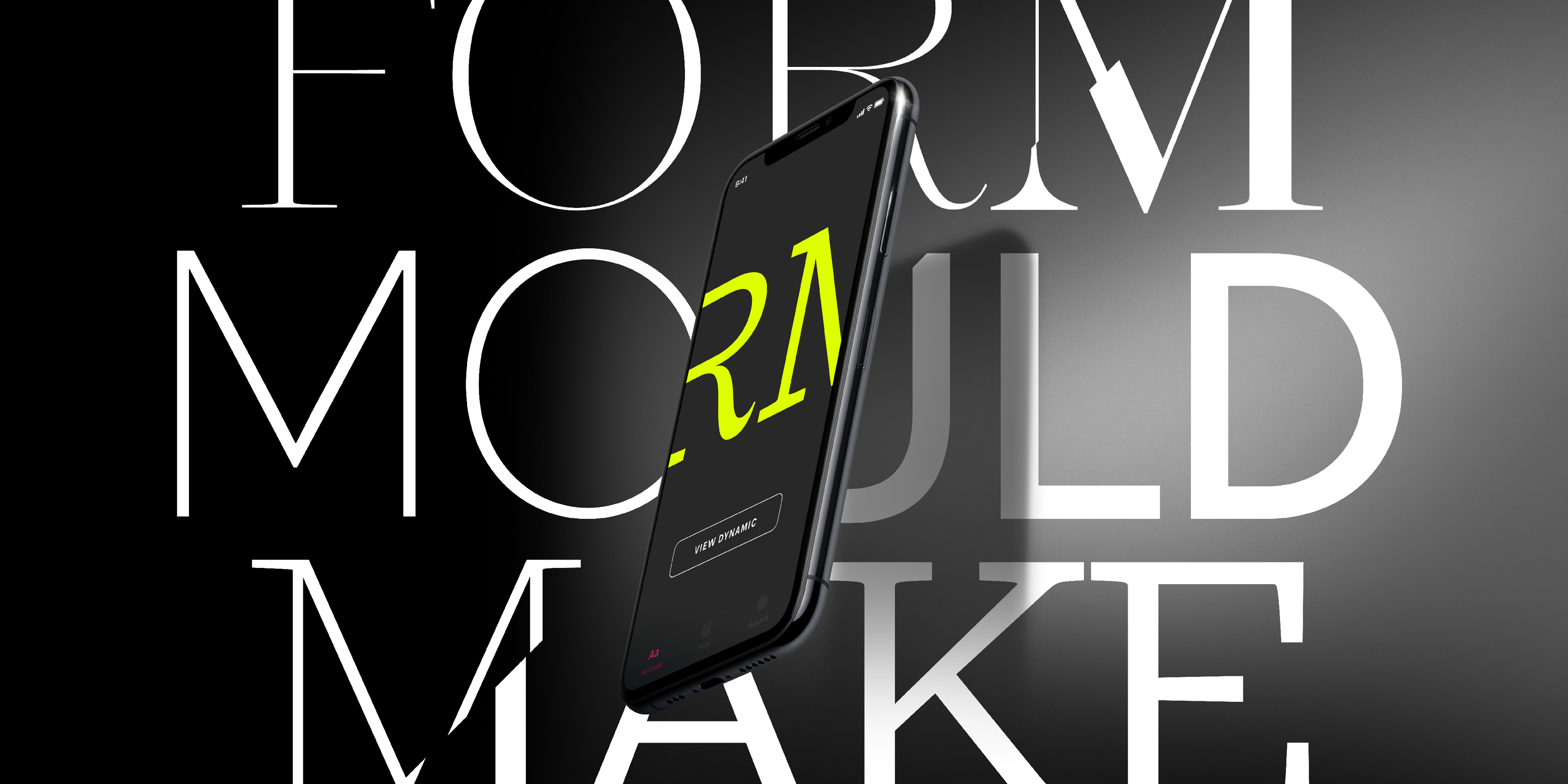
Macklin Font is perfect for contemporary magazine layouts, modern editorial design, digital publishing platforms, lifestyle brand communications, creative agency portfolios, and sophisticated marketing materials. Its versatile character makes it ideal for design studios, fashion publications, cultural magazines, tech startups, and any application requiring flexible typography that conveys creative intelligence, editorial excellence, and contemporary design sensibility.
Macklin Font is exciting because it masterfully bridges the gap between geometric precision and humanist warmth, creating a typeface that feels both systematic and approachable. Its carefully calibrated proportions and refined details offer exceptional versatility across text and display applications, making it perfect for organizations seeking a single typeface family that can handle diverse communication needs. The font's intelligent design adapts seamlessly from intimate text settings to bold headline applications.
Macklin Font family includes comprehensive weight variations typically featuring Thin, Light, Regular, Medium, Semibold, Bold, and Black options with corresponding italic styles and condensed variants. The family often incorporates advanced OpenType features, extensive character sets, and optimized spacing designed for professional publishing applications, providing designers with complete typographic tools for creating sophisticated, editorially-focused design solutions.
When selecting versatile editorial typography solutions, Macklin Font Free Download represents an exceptional choice for contemporary publishing projects. This intelligent typeface brings instant editorial credibility to any application, making it invaluable for magazines, digital publications, and creative agencies requiring typographic flexibility. Whether you're developing magazine layouts, creating brand identity systems, or designing content-rich digital platforms, Macklin Font provides the editorial sophistication and systematic versatility essential for successful contemporary publishing in today's content-driven design landscape.